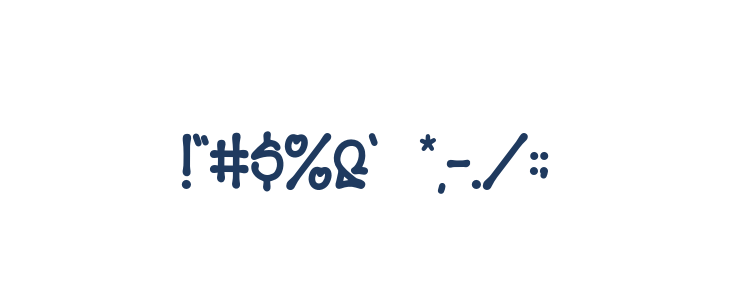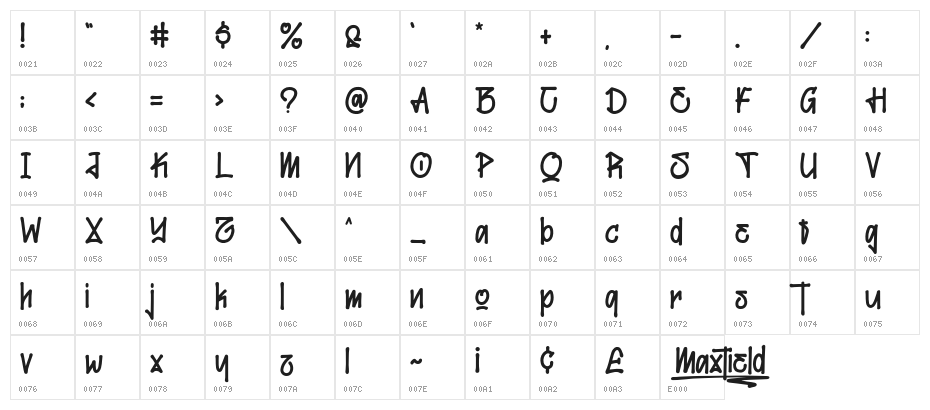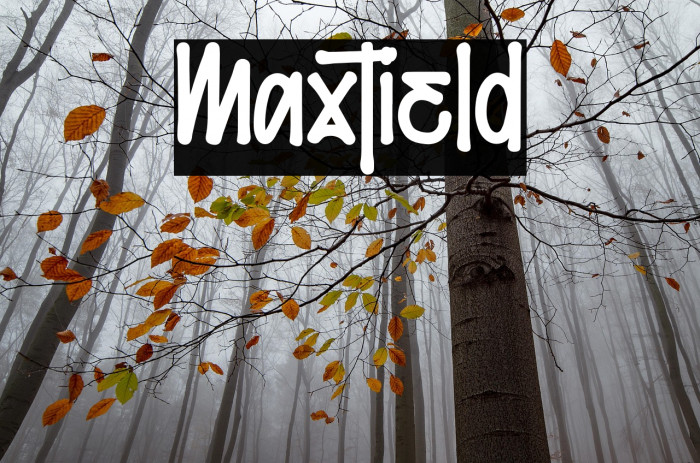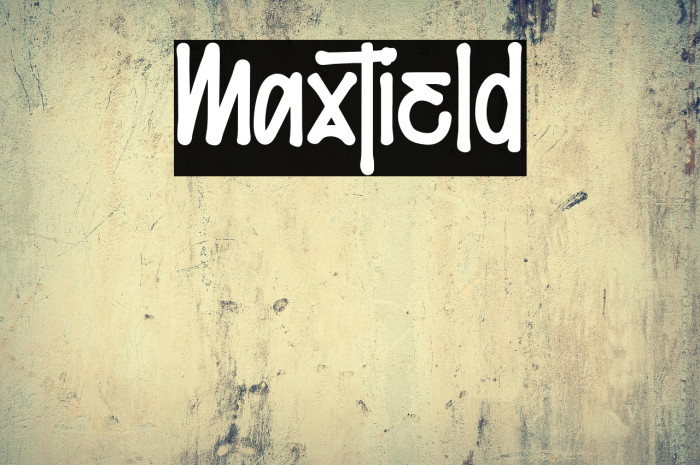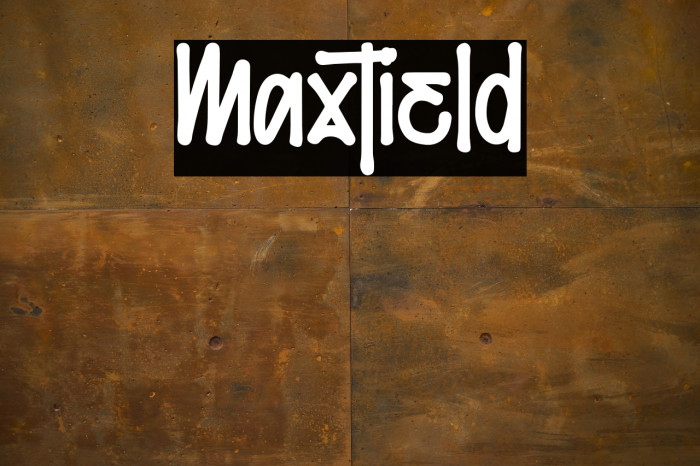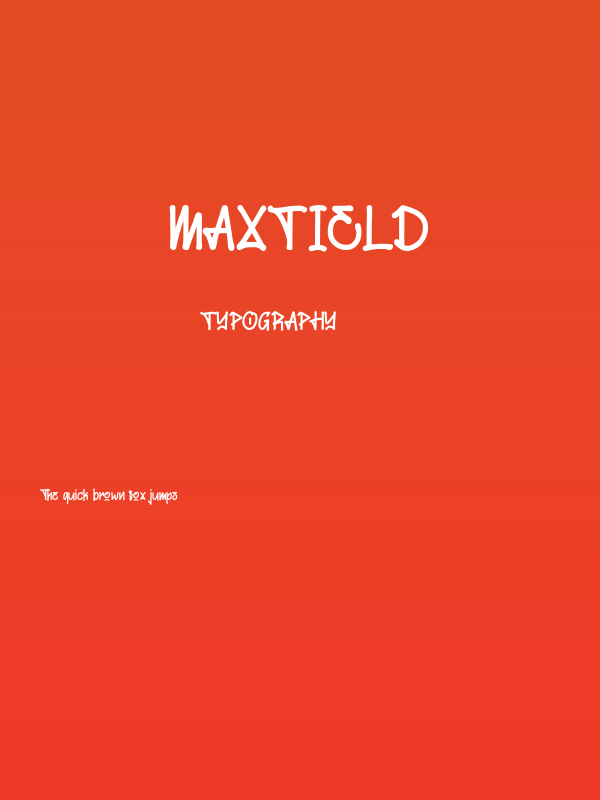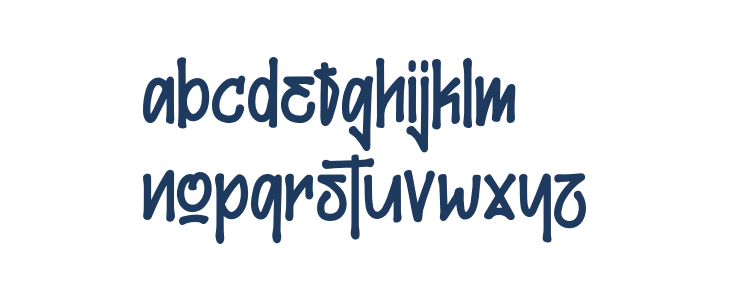
Maxtield Font
Maxtield Description
This font features a bold and playful style with a handwritten appearance. The characters are rounded and slightly irregular, giving it a casual and friendly feel. The uppercase letters are distinct with unique flourishes, while the lowercase letters maintain a consistent flow. The numbers and special characters are designed to match the overall whimsical aesthetic, making it suitable for creative and informal projects. The font's boldness ensures readability, while its decorative elements add a touch of personality.
| Proposed Projects | Ideal for children's books, greeting cards, playful branding, and creative posters. |